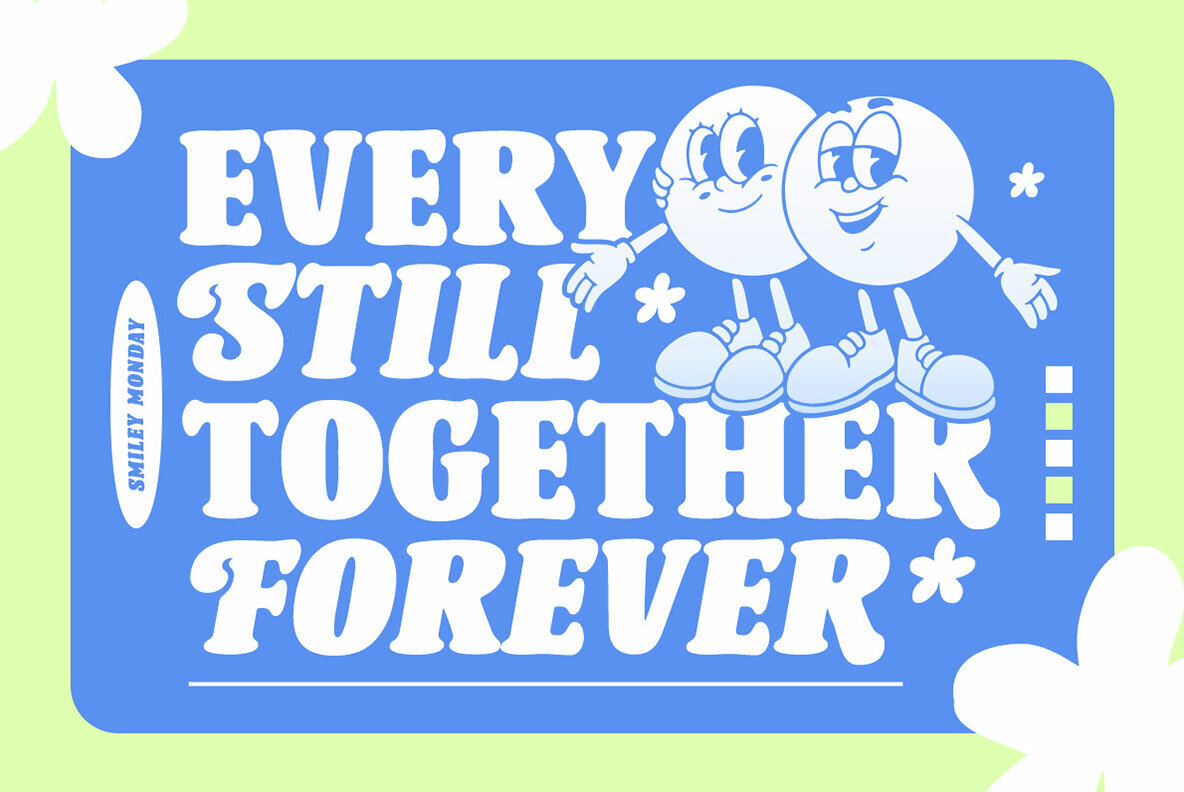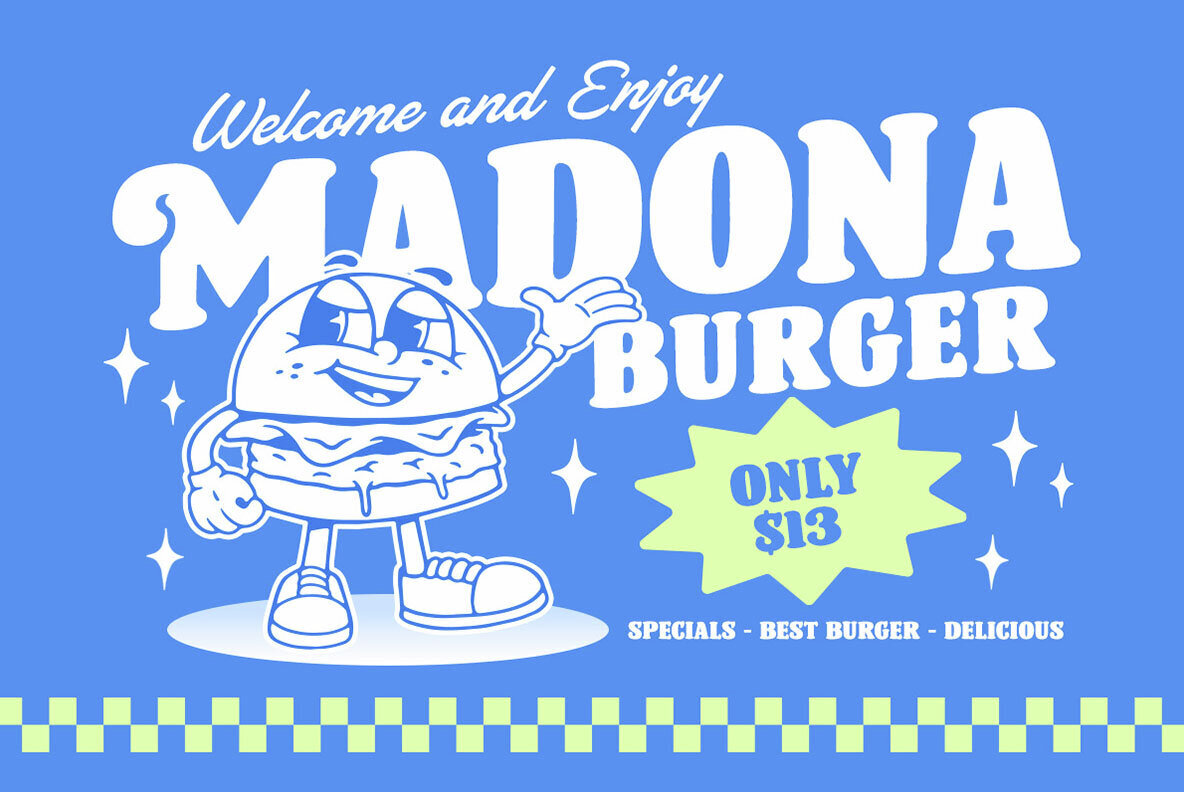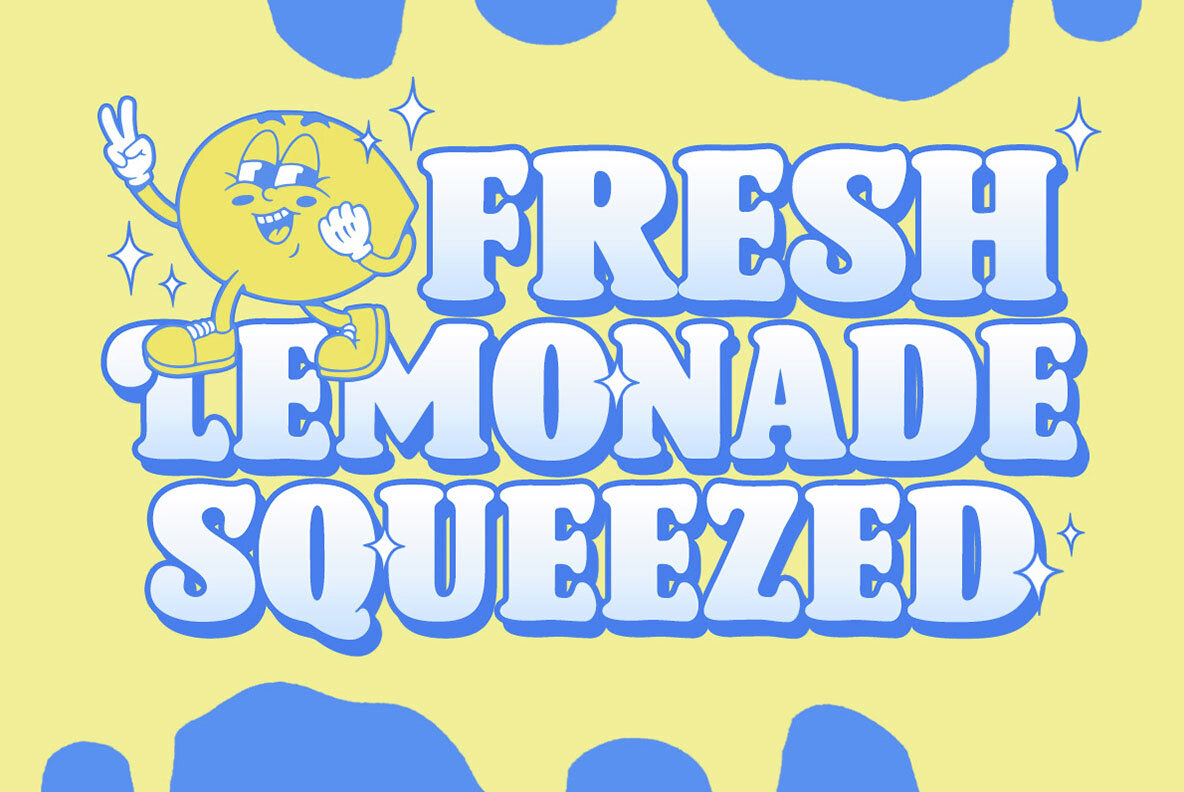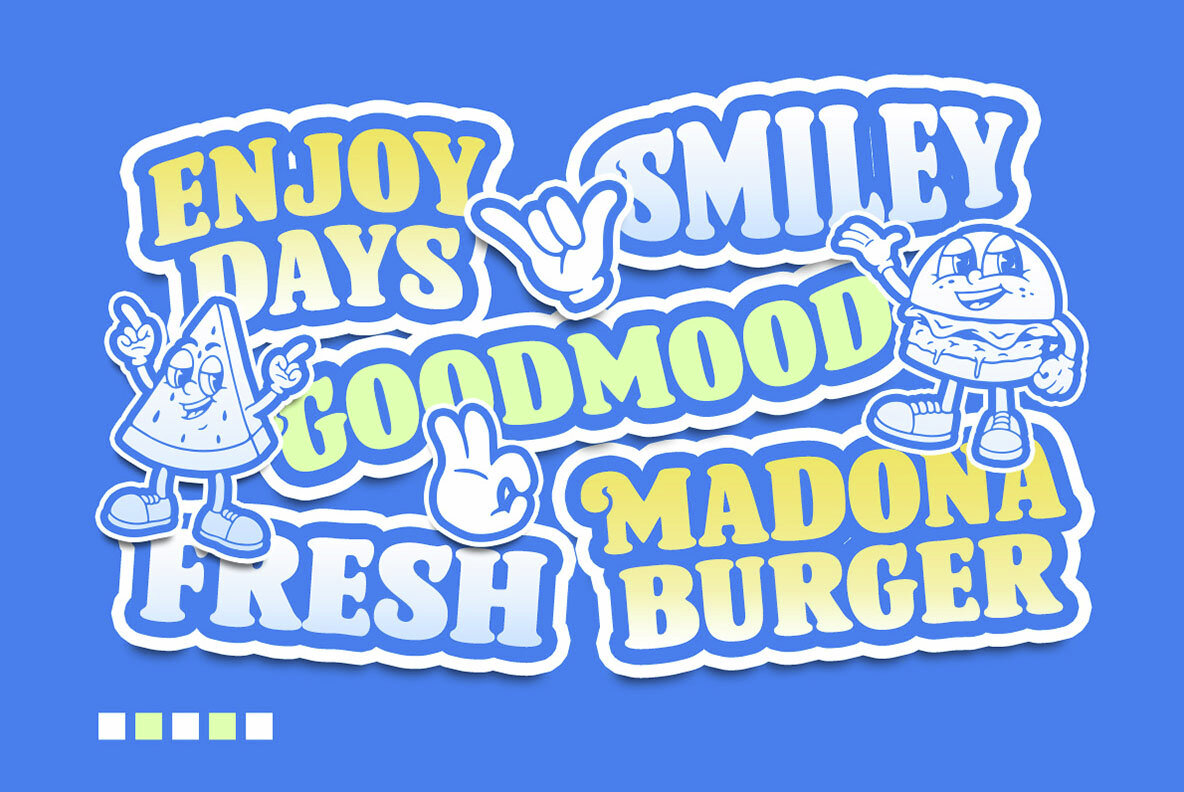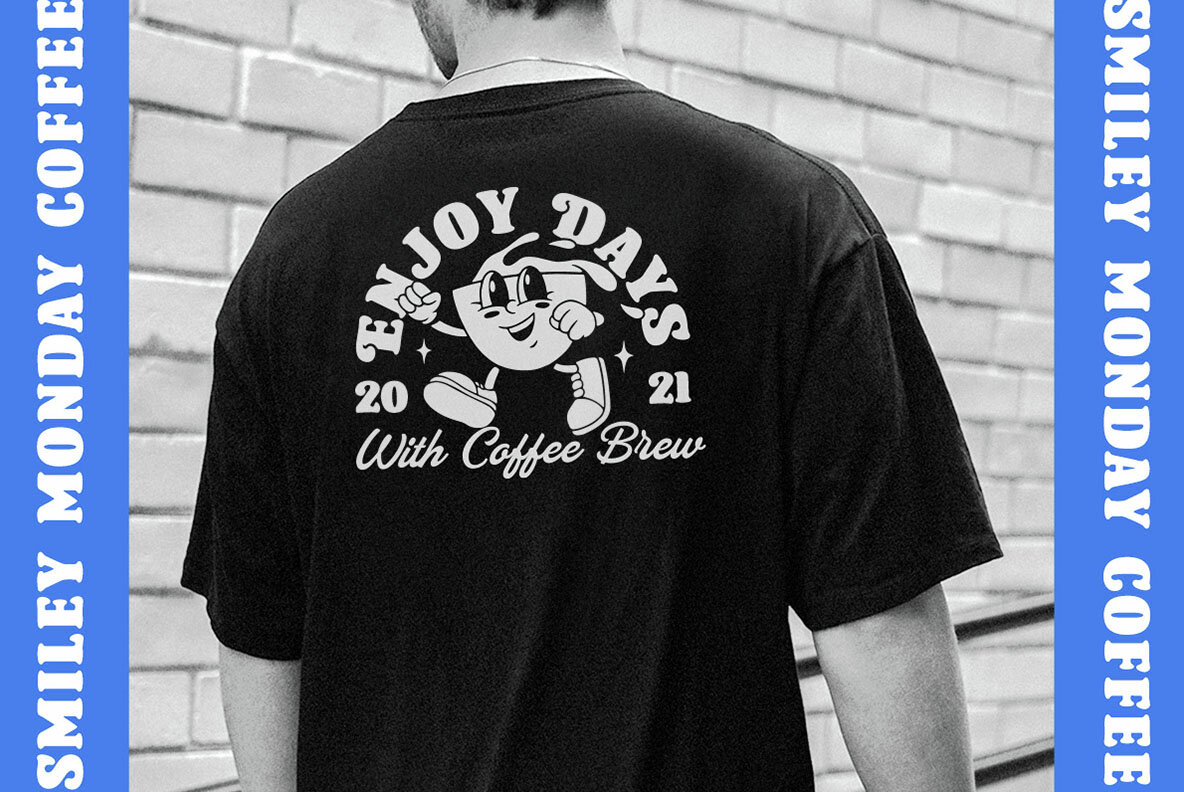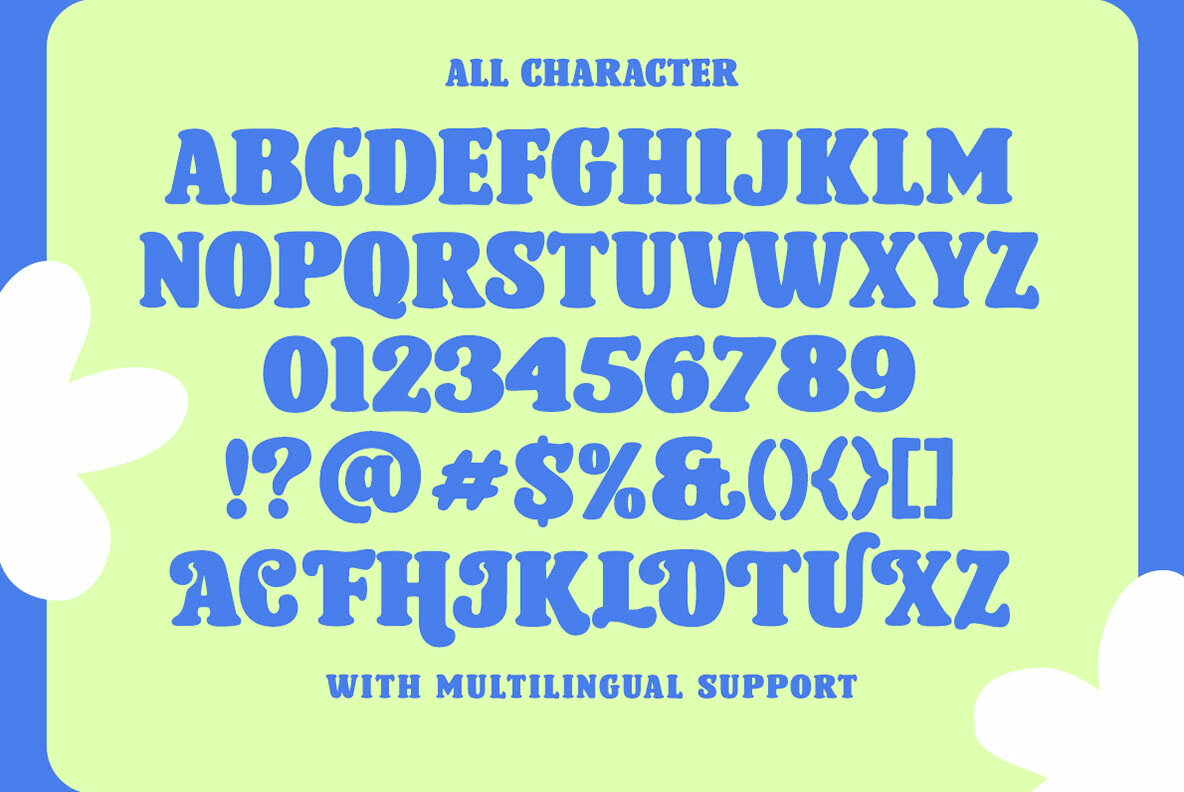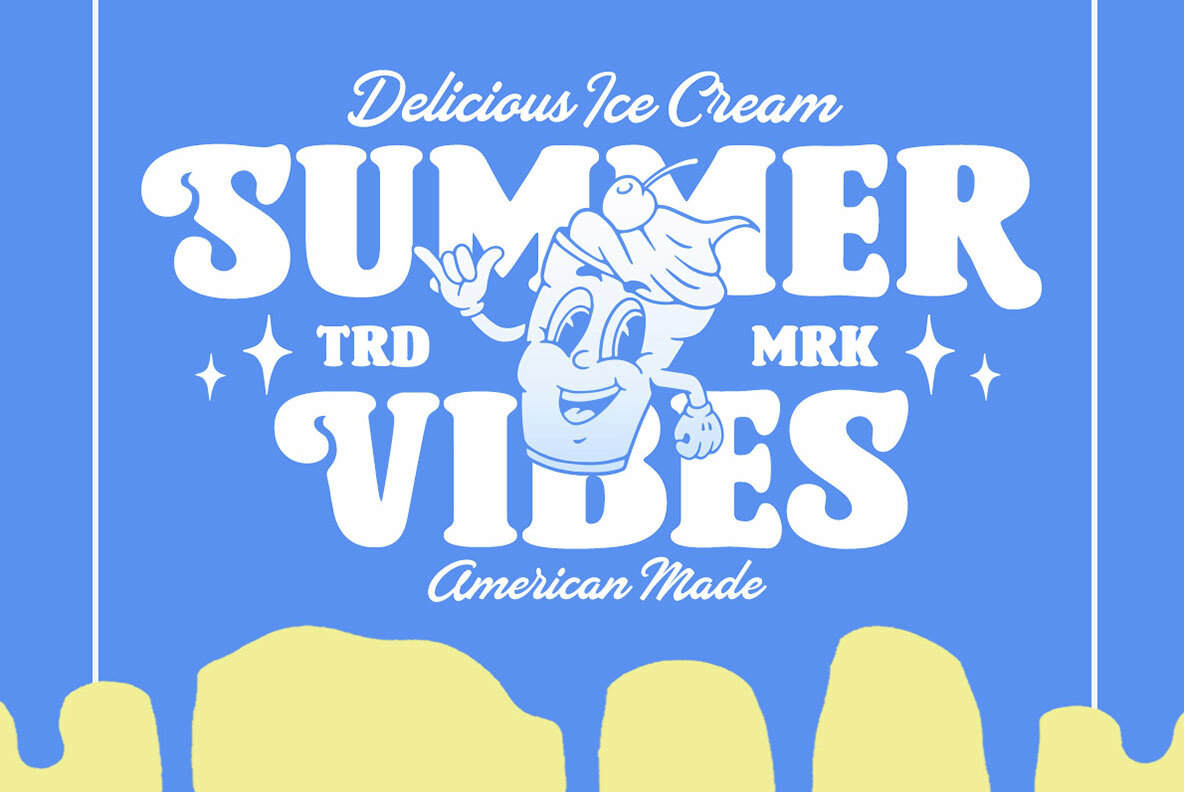
Smiley Monday Font
Smiley Monday is a distinctive display font designed for creative professionals seeking a versatile typeface for various design projects. With its playful alternates and ligatures, it offers endless possibilities for customization, making it ideal for logos, formal invitations, labels, magazines, and greeting or wedding cards. The font provides a stylish touch for fashion, makeup, stationery, novels, and other advertising purposes.
Featuring both uppercase and lowercase characters, Smiley Monday includes numbers, punctuation, multilingual support, and PUA encoding. Its illustration bonus enhances creative opportunities. For the best experience, it is recommended to use programs supporting OpenType features and Glyphs panels like Adobe applications and Corel Draw, which allow designers to fully explore all available glyph variations.